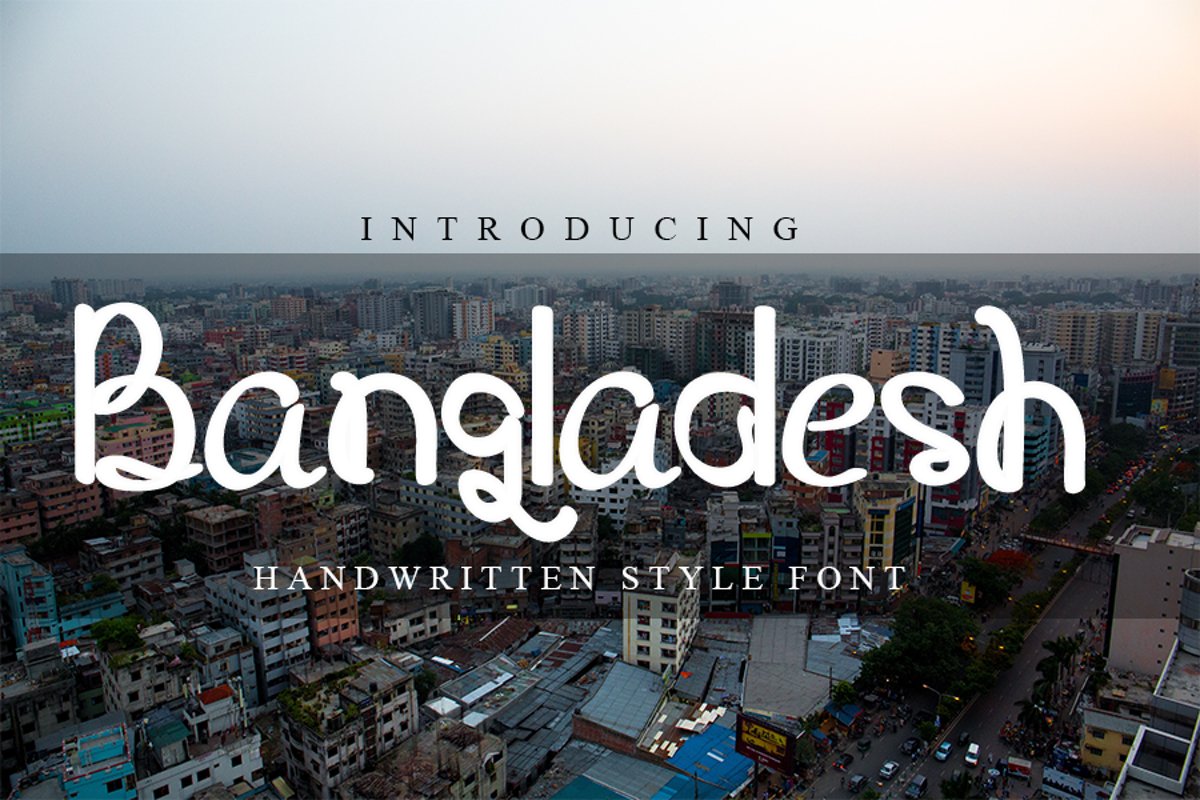
Bangladesh
Bangladesh is a unique and cute font. It features bouncy characters that make it the perfect font for creating outstanding crafting projects!
+More than 100+ Glyphs
+More than 43 Languages
+PUA-Encoded for many alternates and ligatures